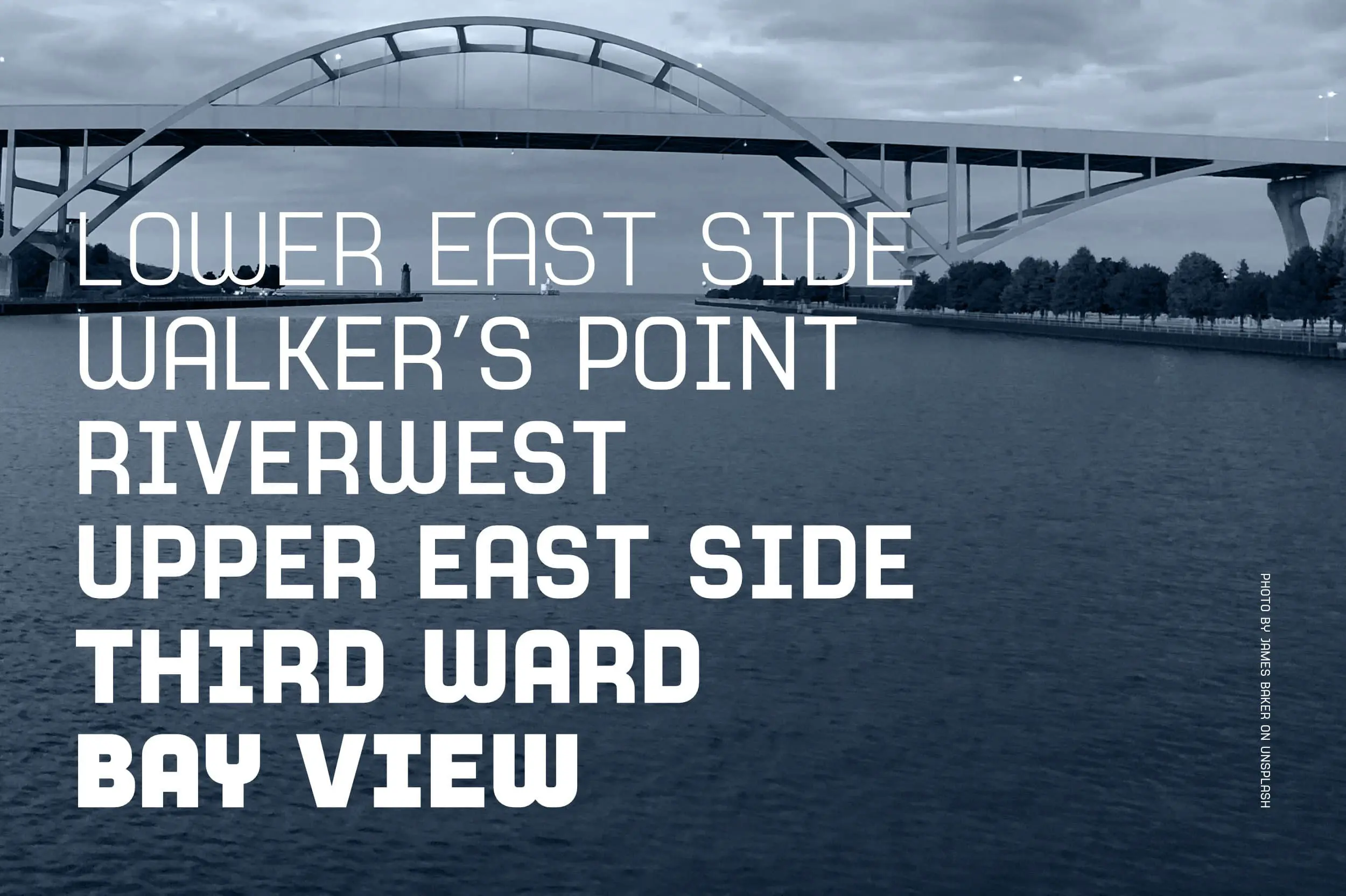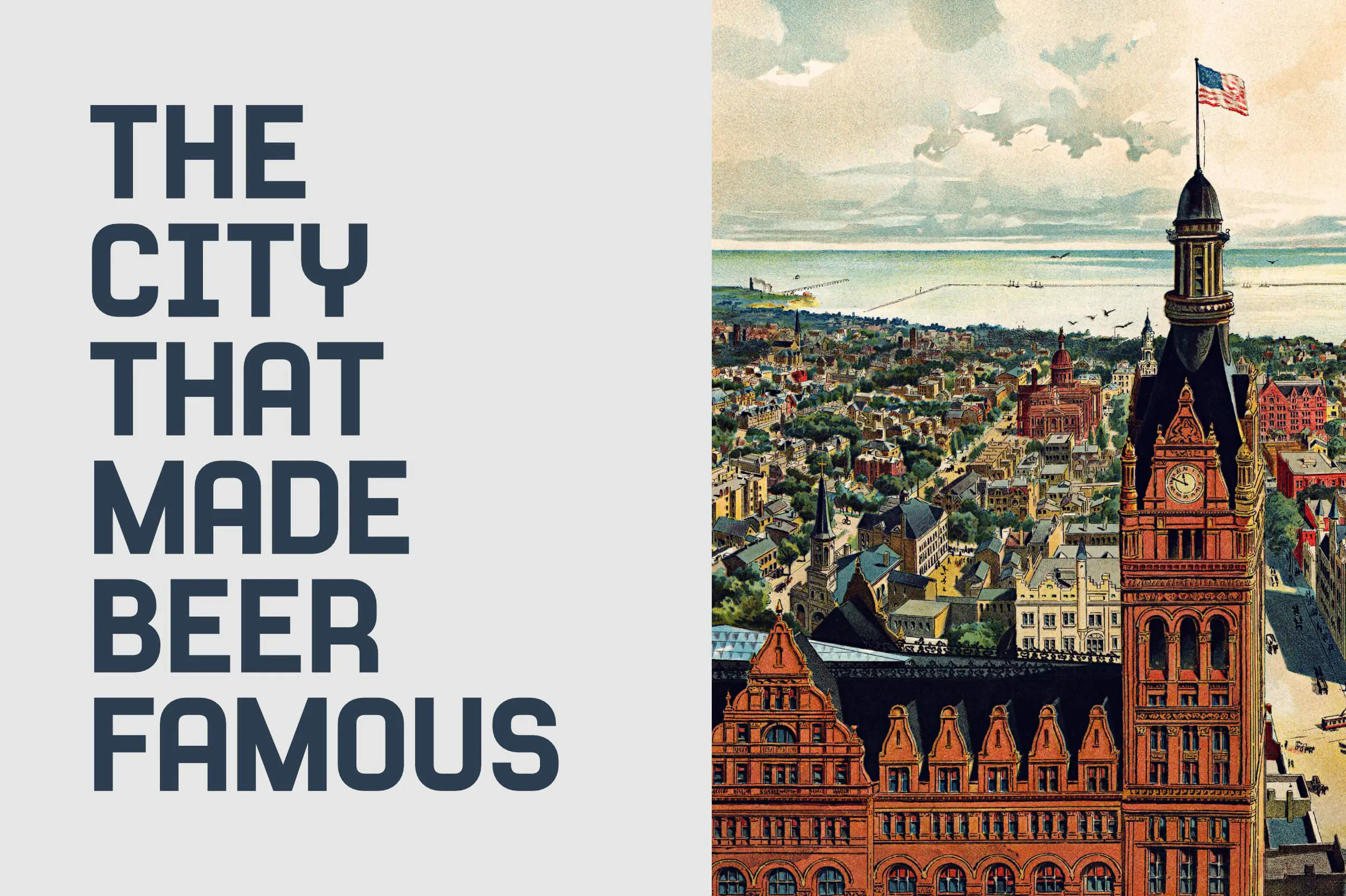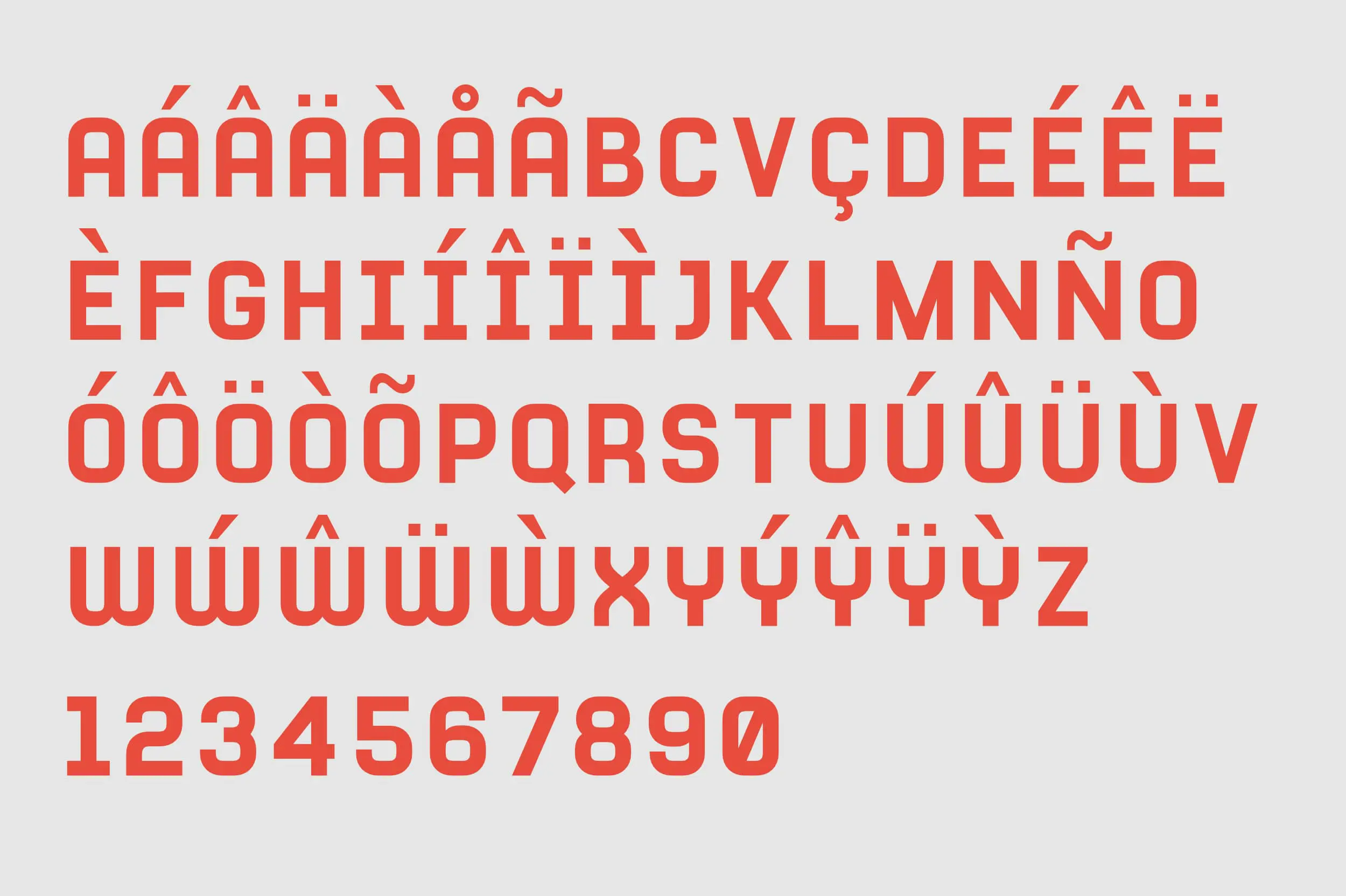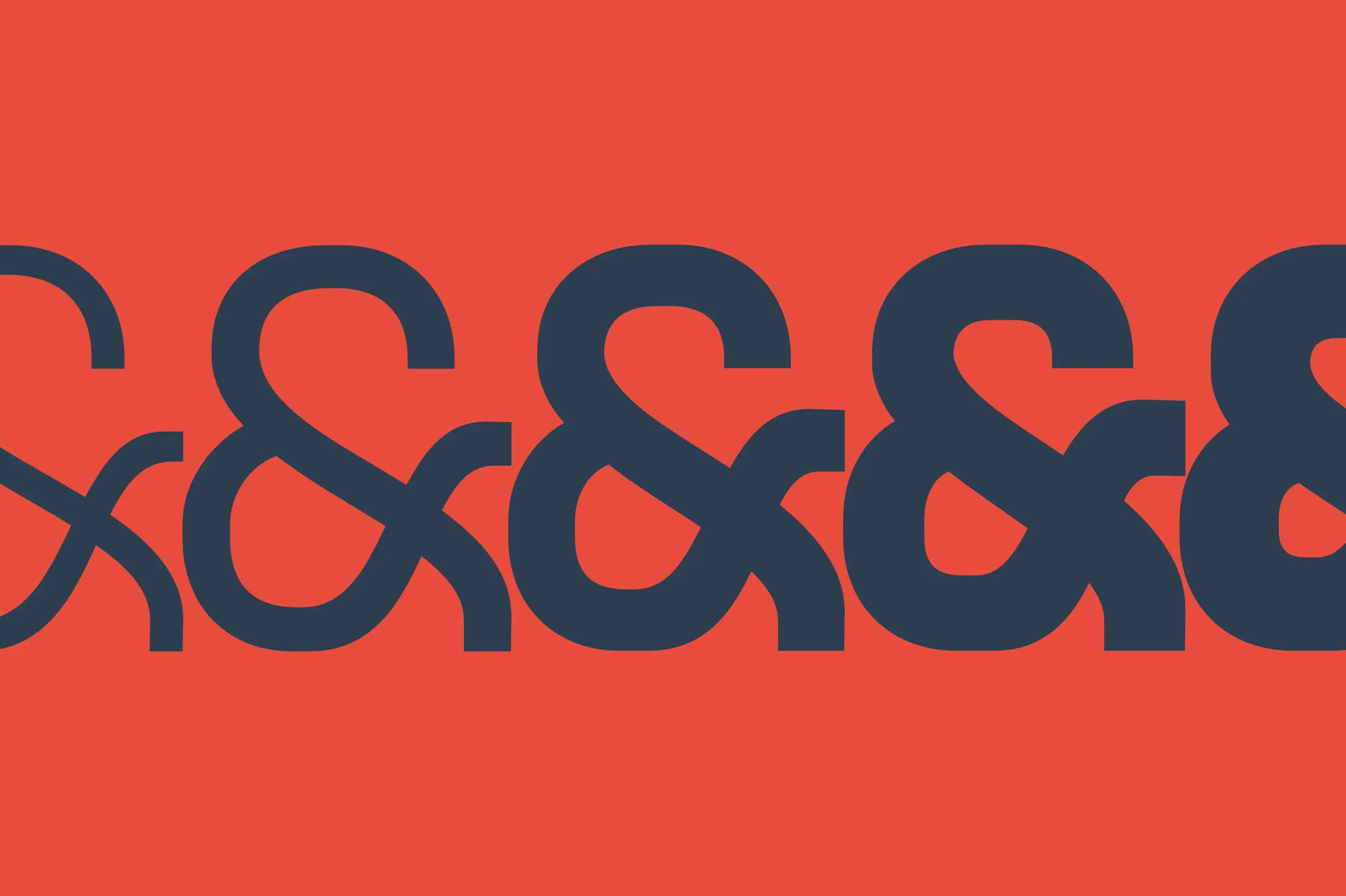
A modular all-caps display sans inspired by vintage Milwaukee tavern signage — available in six weights and as a variable font.
Named after Farwell Avenue in Milwaukee — a street whose painted bar signs and neon lettering informed every decision in this typeface. Farwell IPA is all-caps, modular, and built for shouting in the best possible way.
Particularly effective for signage, sports branding, and headlines that need presence without pretension. The variable weight axis means one file covers the full range from hairline to maximum impact.